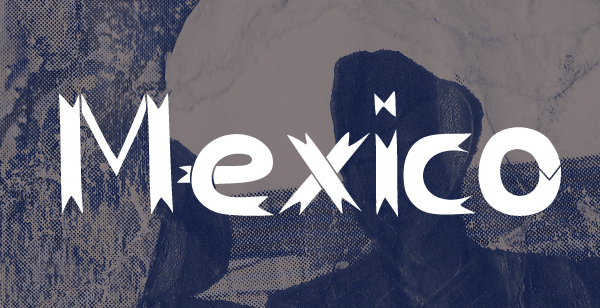
BCS Ben Wood by Ben Chalit Sagiamsak is a free decorative display font with irregular letters and sharply cut details. Repeated triangular notches and flared points turn the strokes into a lively pattern, with shifts between broad and slender forms.
Music and theatrical themes suit its jagged silhouette, making it useful for concert posters and stage graphics. It also brings a handmade edge to apparel branding and event merchandise. There, the letters can become part of the emblem itself.
CS Benwood was designed by BenChalit Sagiamsak.